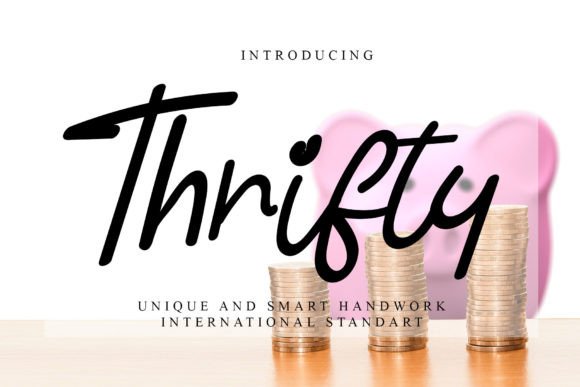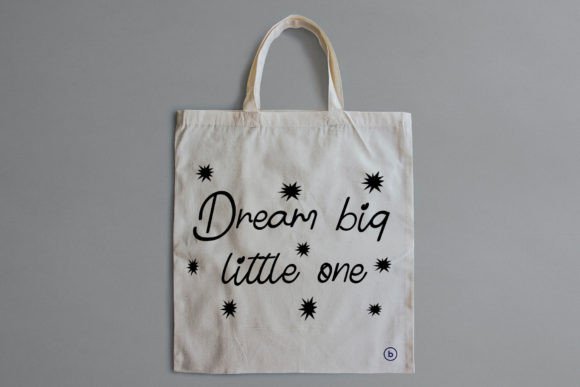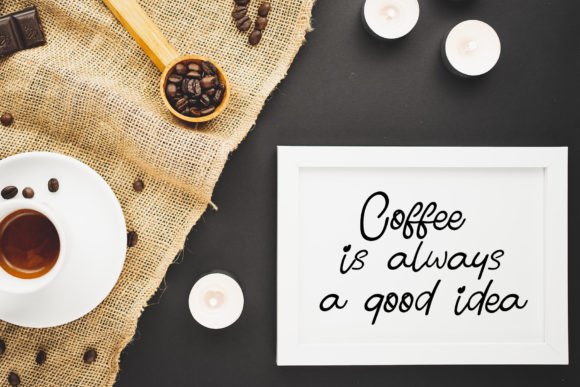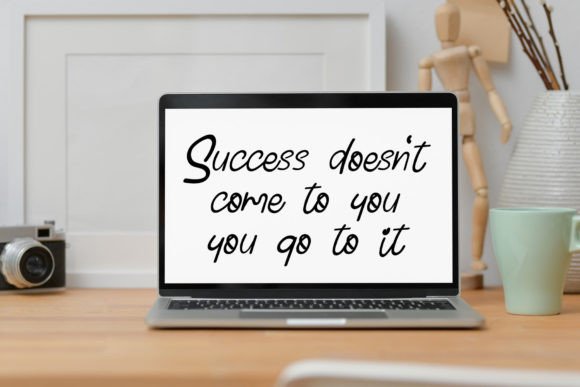
**Thrifty** is more than just a font; it’s a unique and elegant expression crafted for a touch of sophistication and versatility. This font is a fantastic choice for various designs, including wedding invitations, greeting cards, billboards, logos, business cards, and any project that benefits from a handwritten touch.
The distinctive appeal of **Thrifty** is evident in its carefully crafted features, presenting a varied baseline that adds a dynamic and artistic touch. This natural, hand-made feel contributes to the font’s overall elegance, making your text look more real and creating spectacular creations that stand out.
Whether you’re designing materials for a wedding, creating eye-catching billboards, or establishing a unique brand identity with a logo, **Thrifty** is the font that elevates your text with a handwritten flair. Its adaptability ensures seamless integration into various design contexts, allowing your projects to stand out with elegance and sophistication.
The craftsmanship of **Thrifty** extends to its PUA encoding, providing easy access to all glyphs and swashes. This feature enhances the user experience, allowing you to effortlessly incorporate the font’s beautiful elements into your designs.
In summary, **Thrifty** is the unique and elegant font designed for sophistication and versatility. With a varied baseline and a natural, hand-made touch, it’s perfect for wedding invitations, greeting cards, billboards, logos, business cards, and more. Let your ideas come to life with a font that adds a handwritten touch of elegance to your creations.